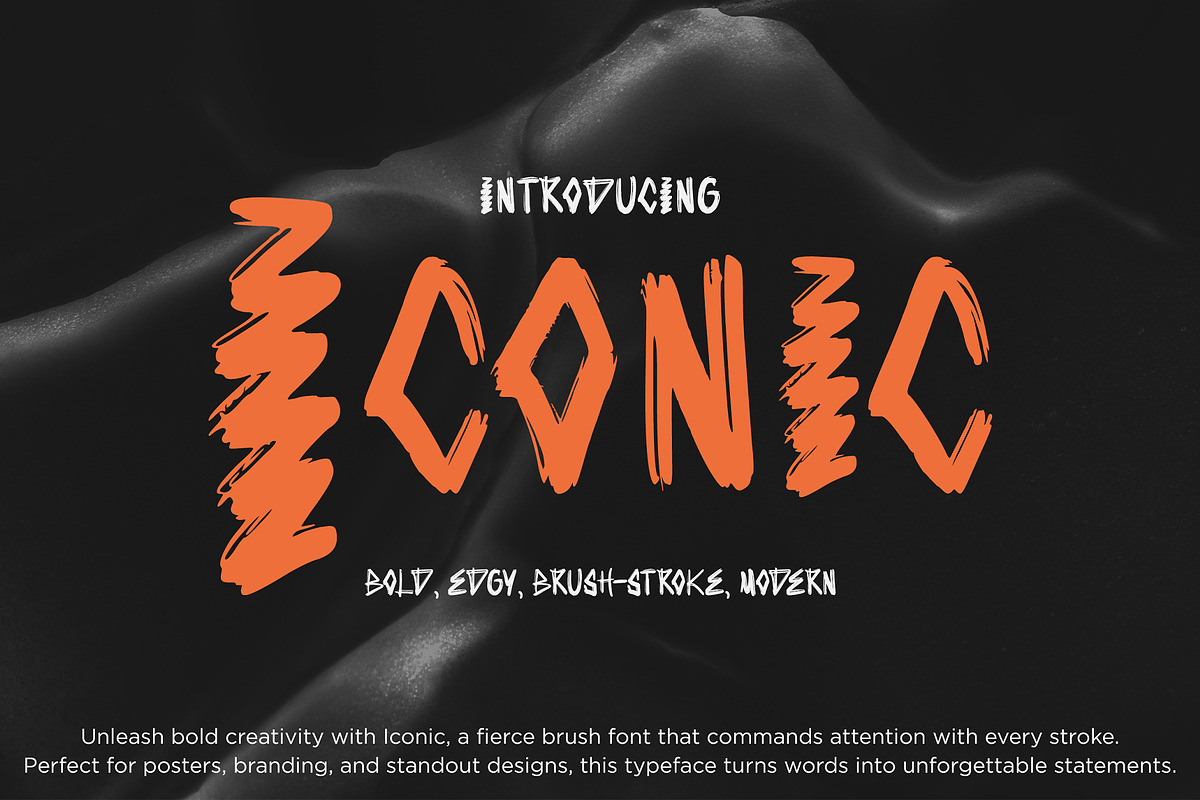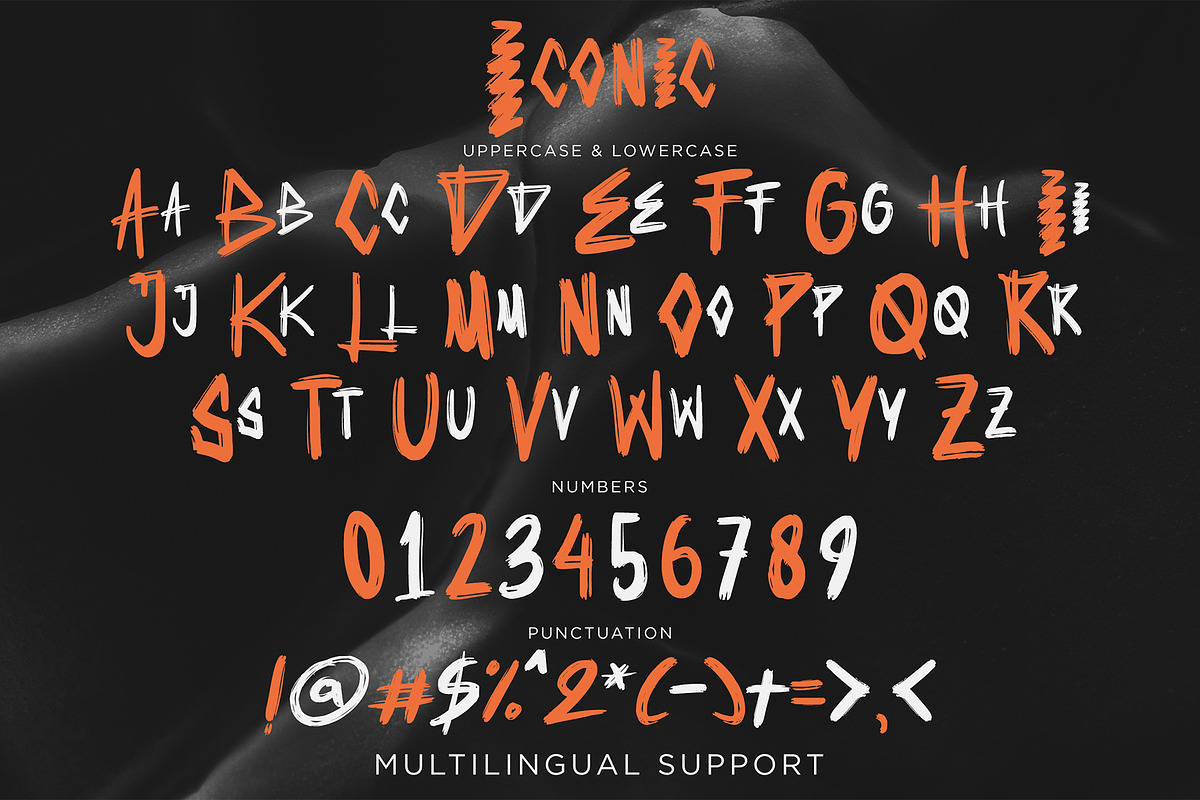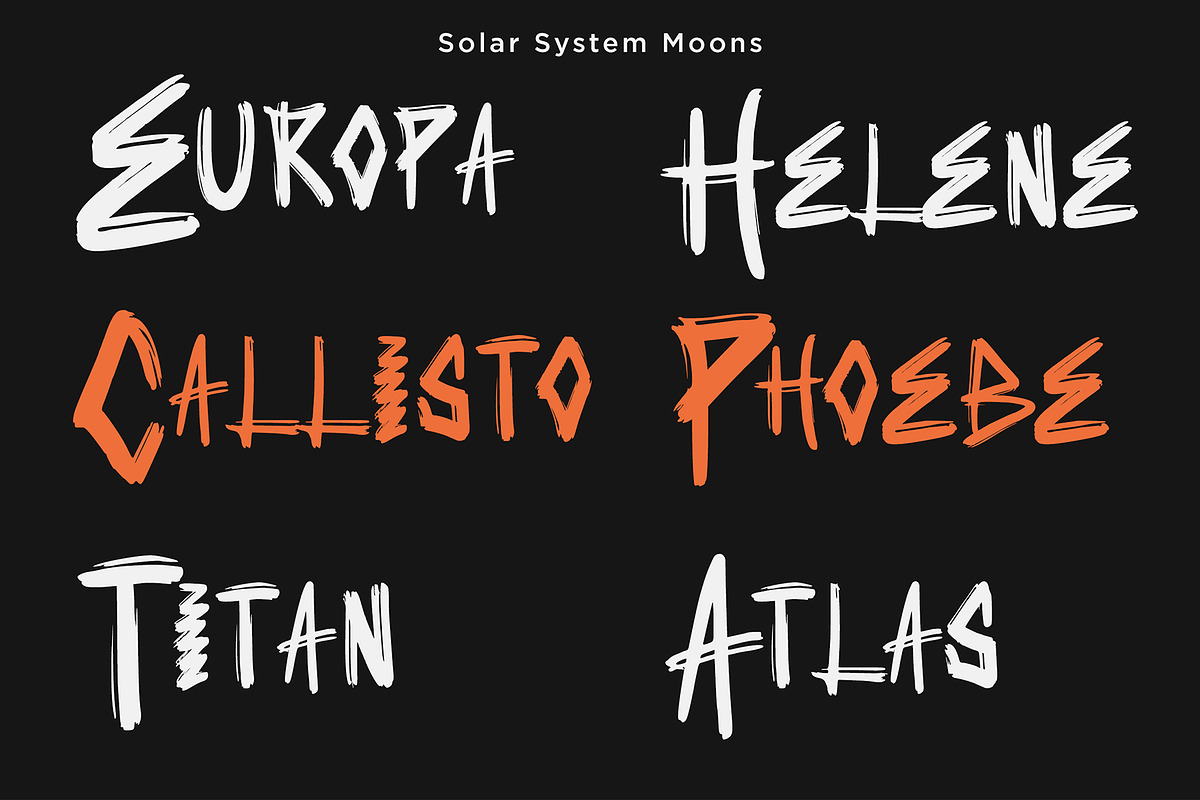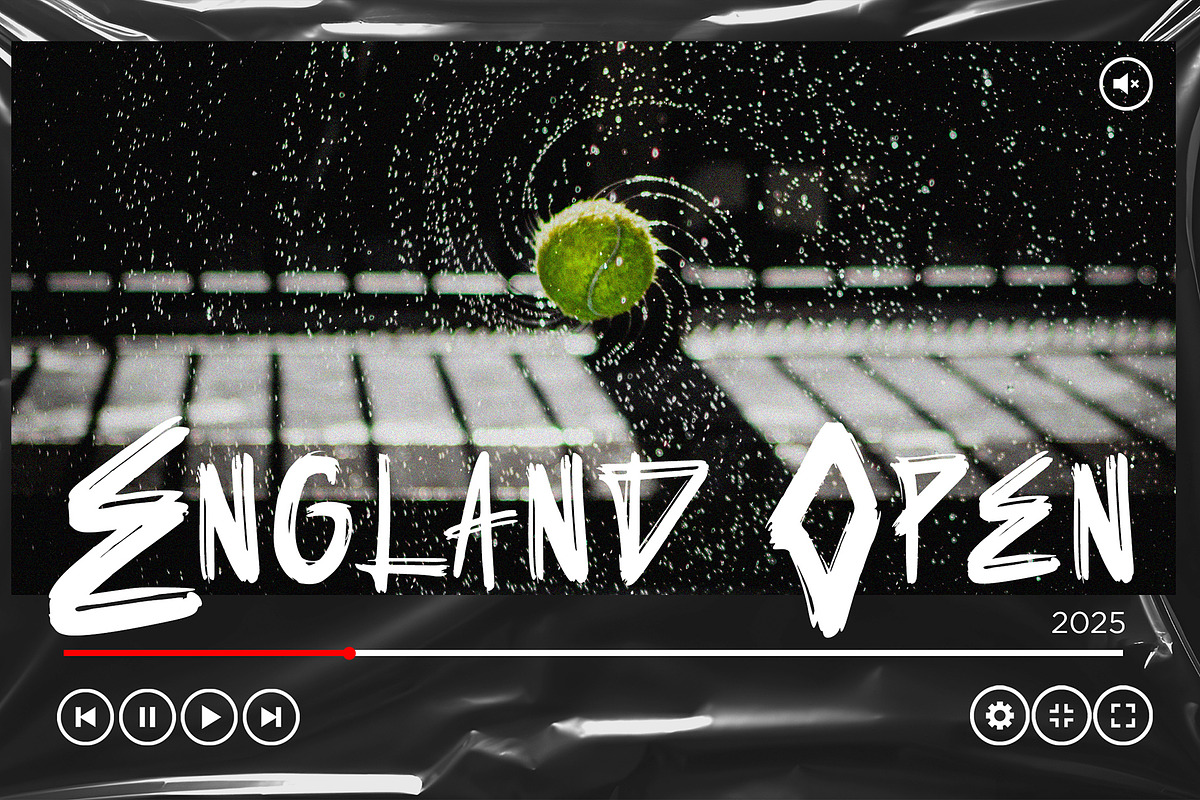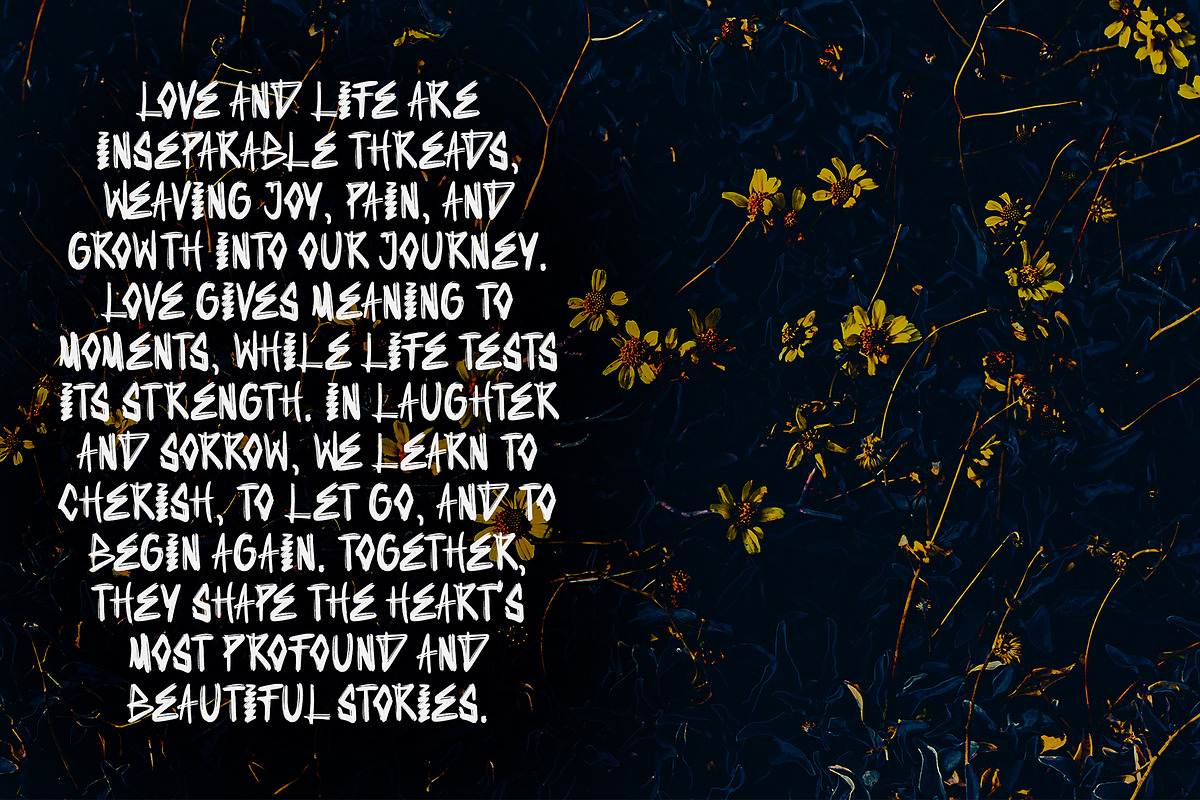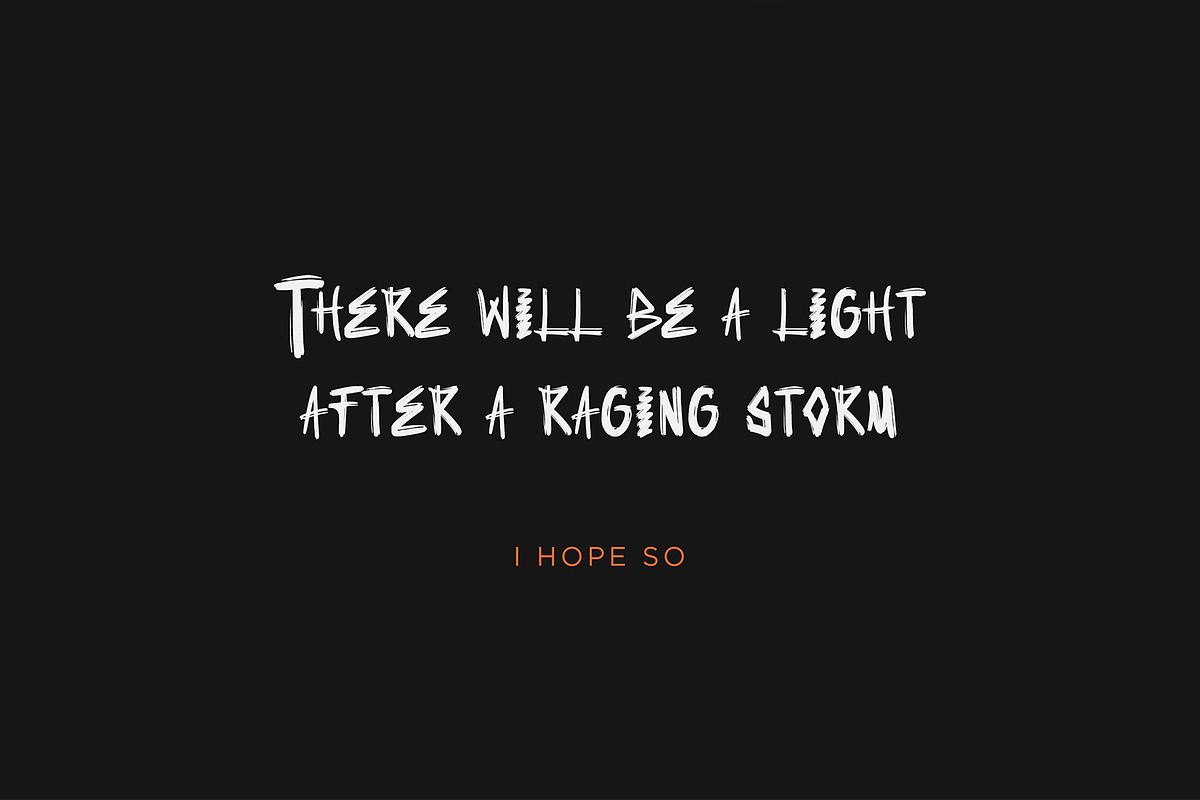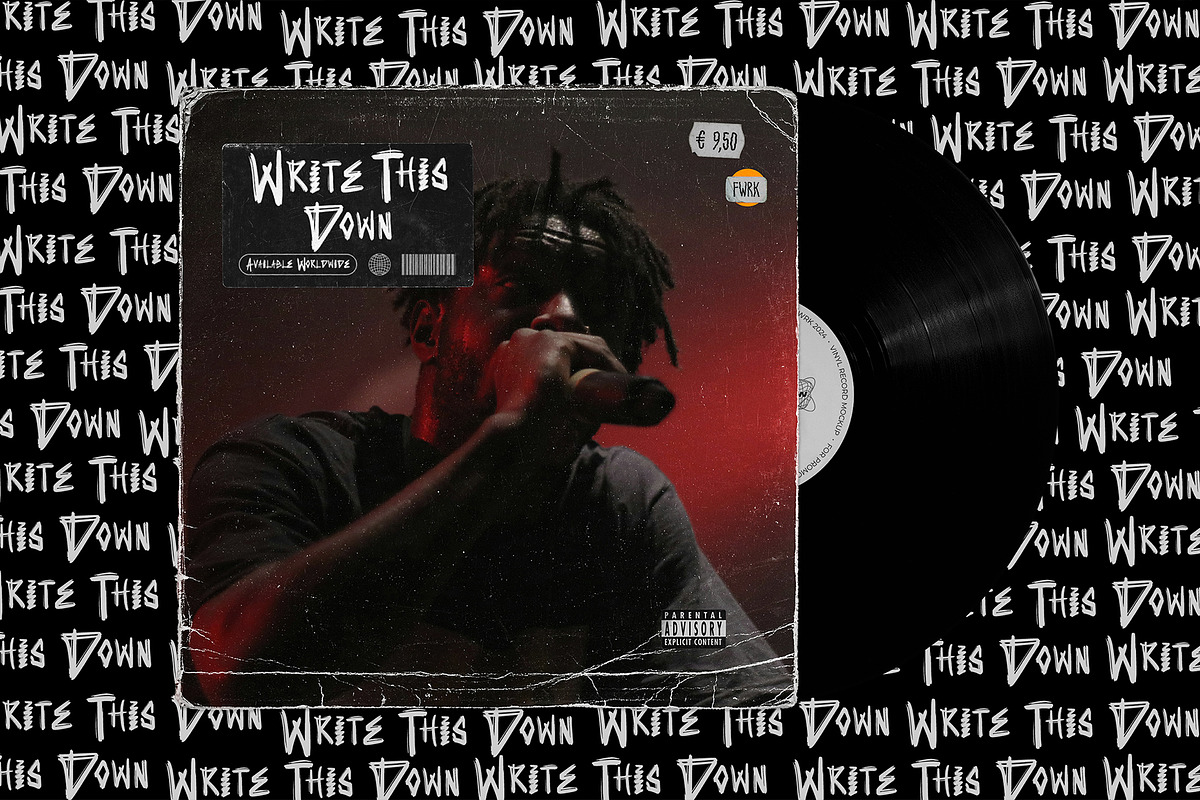
Iconic – Bold Brush Font
Iconic is a daring corporate logo brush font that demands attention from the first glance. With its jagged brush strokes and edgy, handcrafted feel, Iconic is perfect for projects that aim to be unforgettable — from bold poster headlines to striking product packaging and fearless branding.
Crafted with attitude and precision, Iconic brings raw energy and visual impact to your typography. Each letter is designed to push the boundaries, making this typeface ideal for high-impact corporate logos, modern advertising campaigns, event promotions, and album covers.
Whether you're launching a new streetwear brand, creating buzz-worthy marketing visuals, or designing for music, fashion, or tech, Iconic adds a modern rebellious twist that resonates.
Let your brand speak volumes — with Iconic, the ultimate corporate logo brush font that’s bold, modern, and unapologetically original.
Uppercase A–Z Brush Characters
Alternates & Custom Stroke Variants
Bold Brush Texture
Corporate logos with attitude
Streetwear branding
Music and festival design
Poster art & merchandise
Extreme sports branding
Editorial headlines